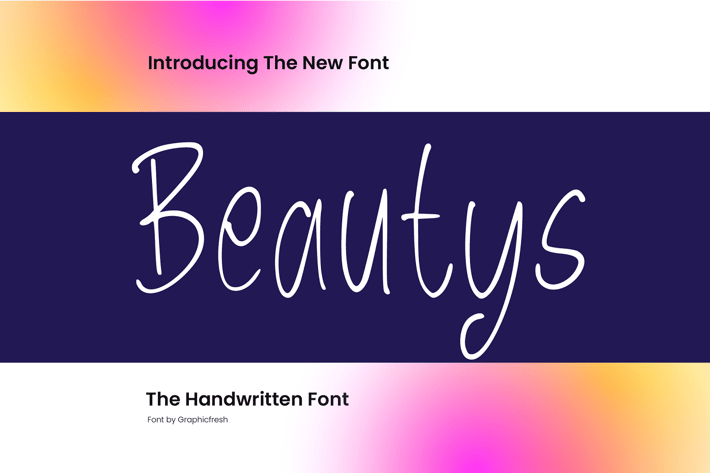
Beautys - The Handwritten Font
Beautys - The Handwritten Font, it’s perfect for logos, name card, magazine layouts, invitations, headers, or even large-scale artwork.